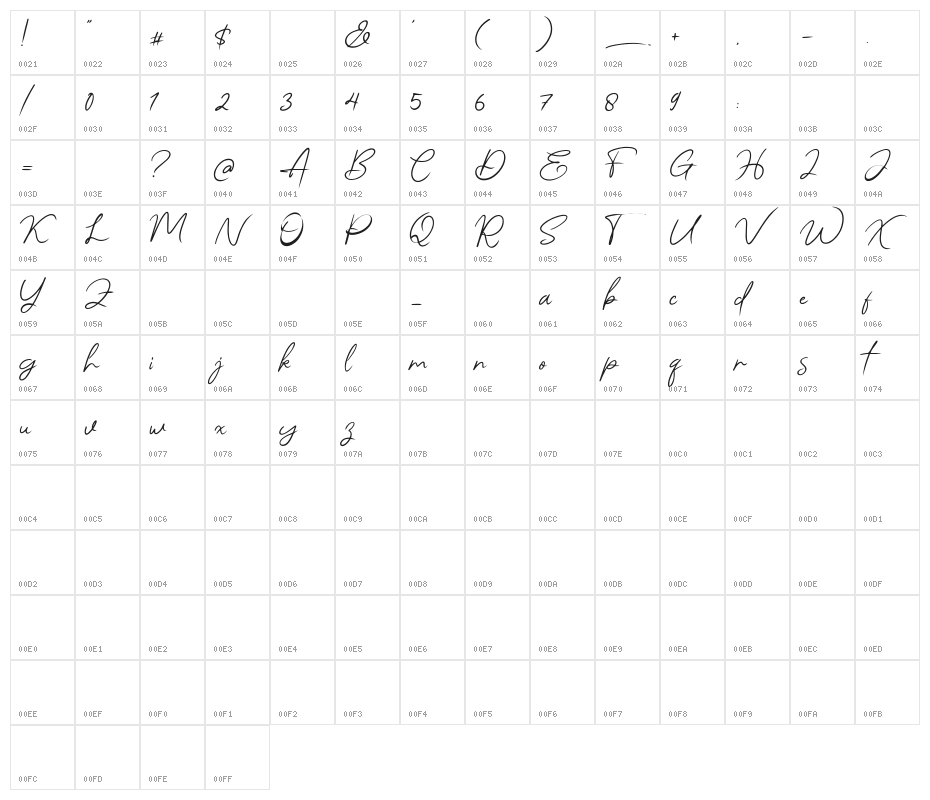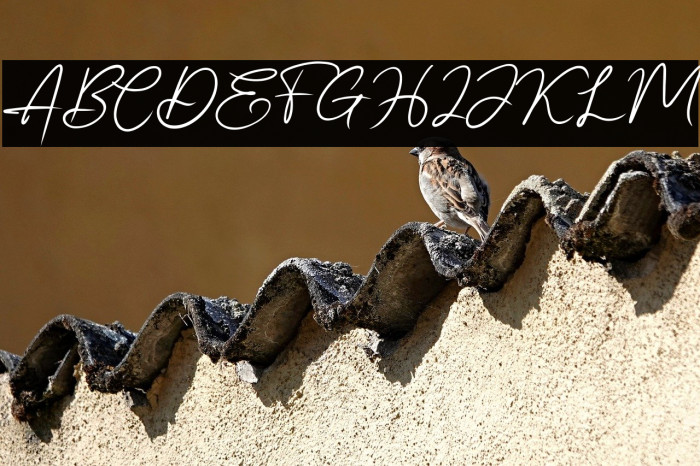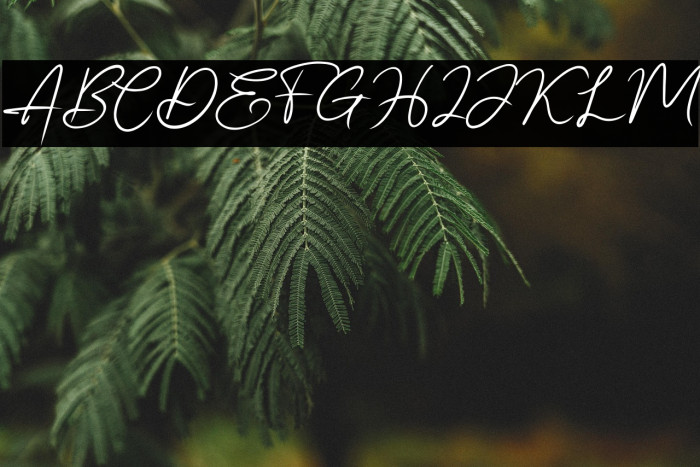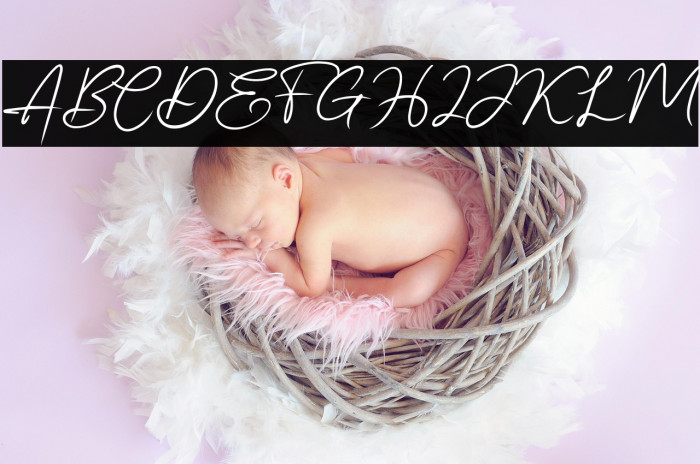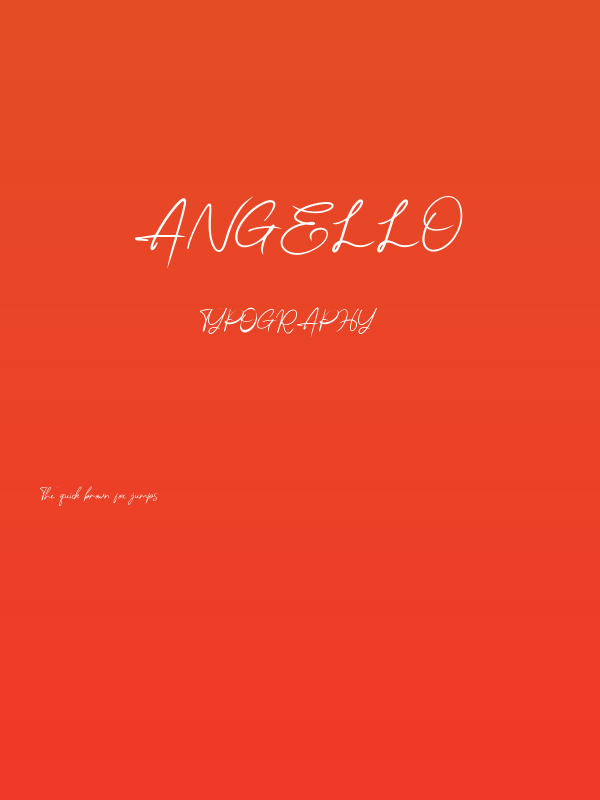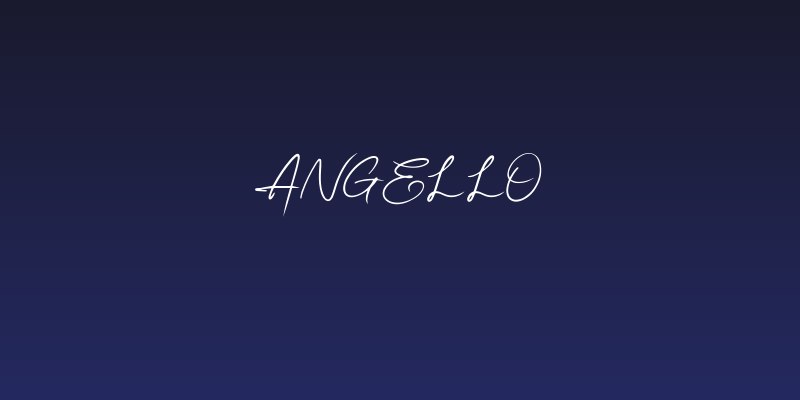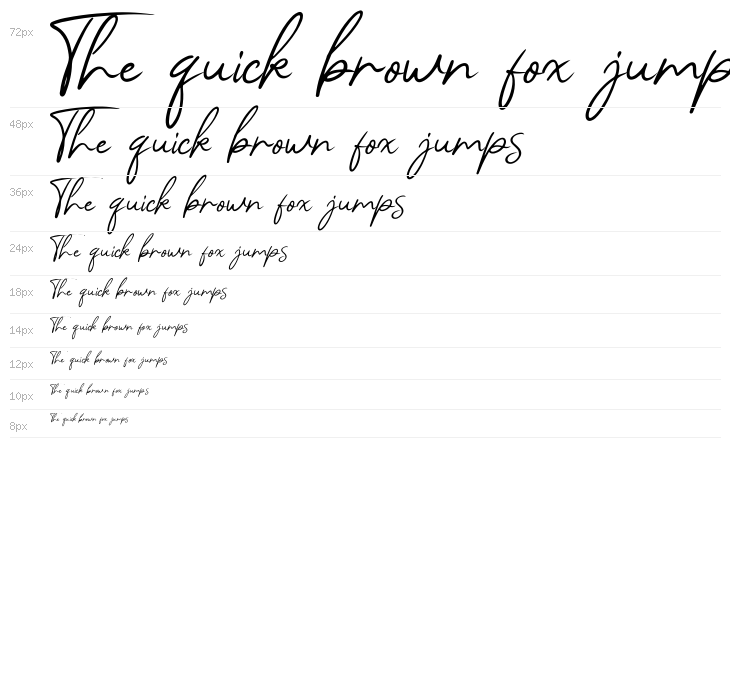
Angello Font
Angello Description
This elegant script font exudes a sense of fluidity and grace, characterized by its flowing, cursive letterforms. The uppercase letters are tall and slender, with sweeping curves and delicate loops that give them a sophisticated appearance. The lowercase letters maintain a consistent style, featuring smooth, connected strokes that enhance the font's readability. Numbers and special characters are crafted with the same attention to detail, ensuring a cohesive look across all elements. The font's overall design is both stylish and versatile, making it suitable for a variety of applications.